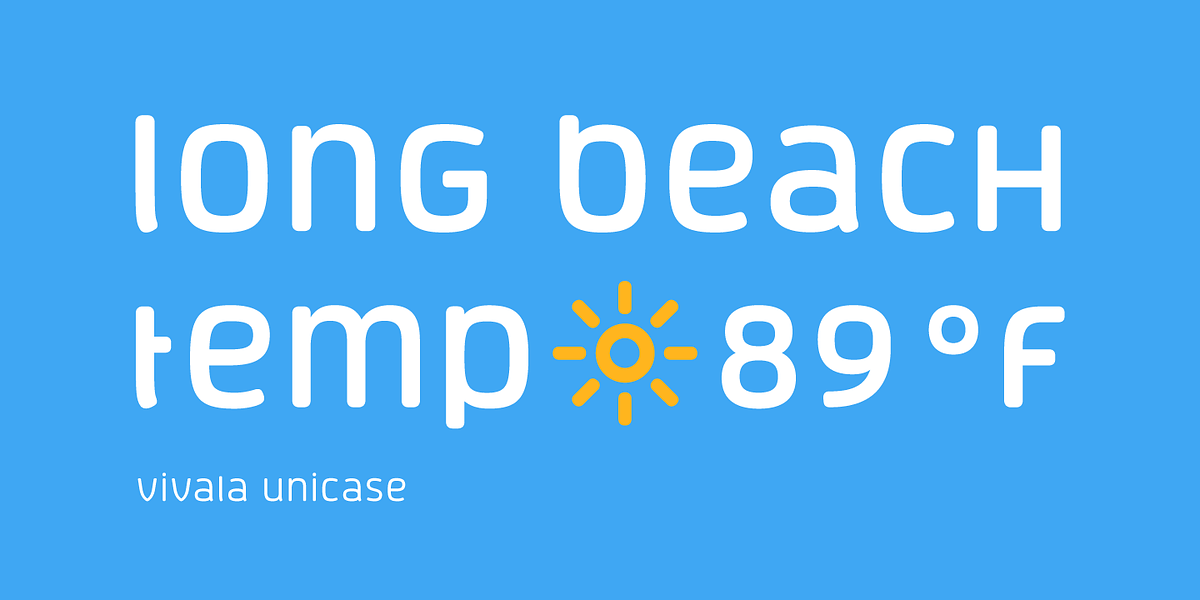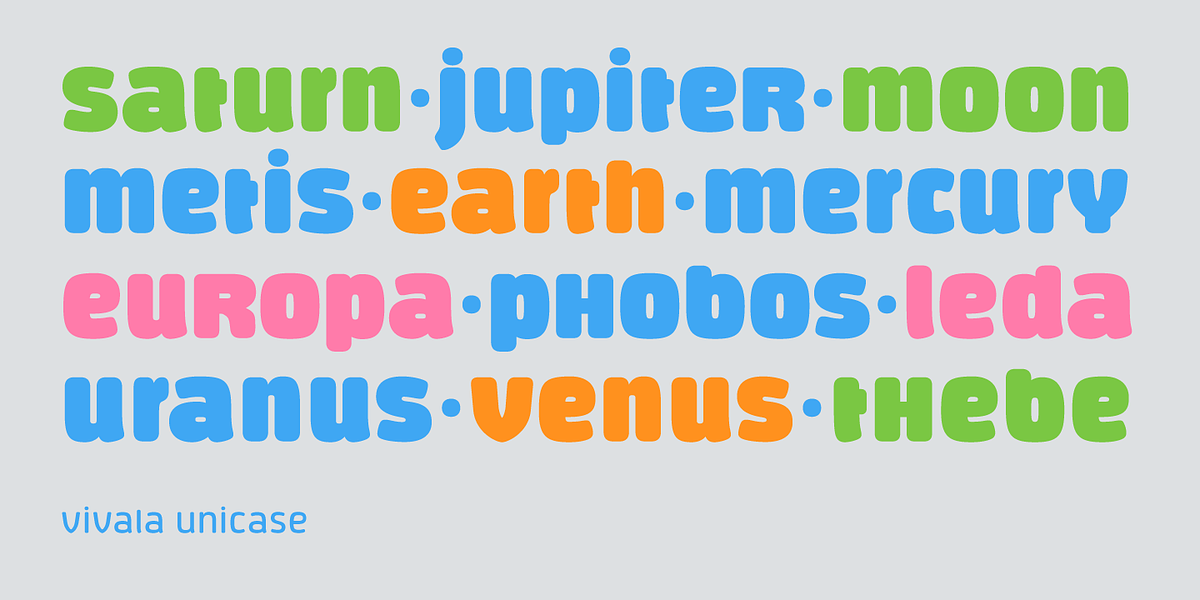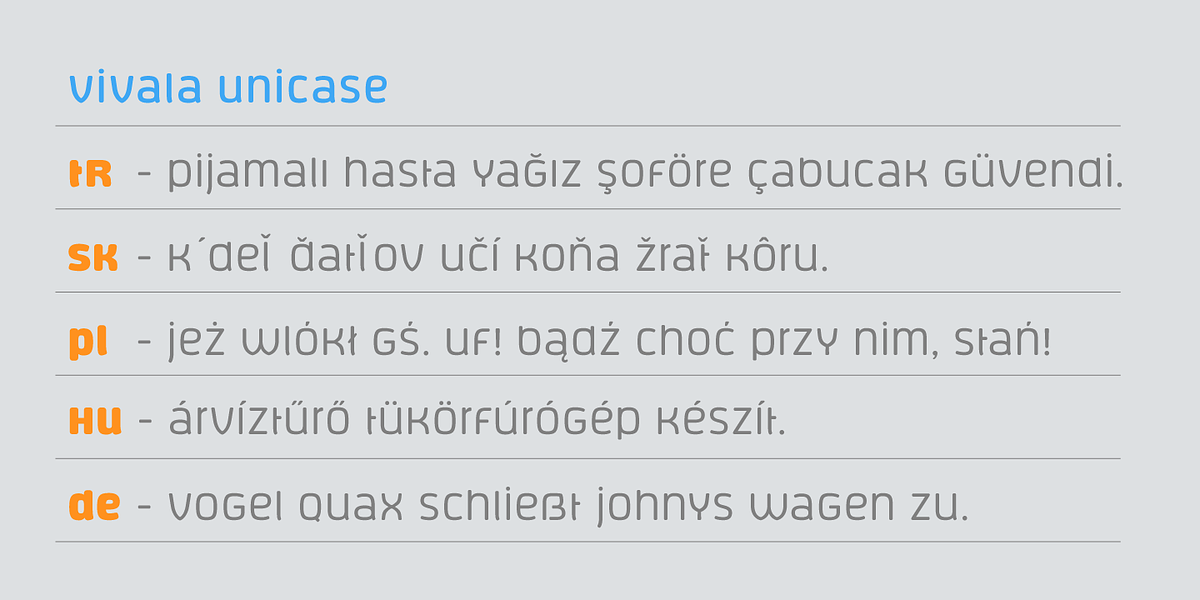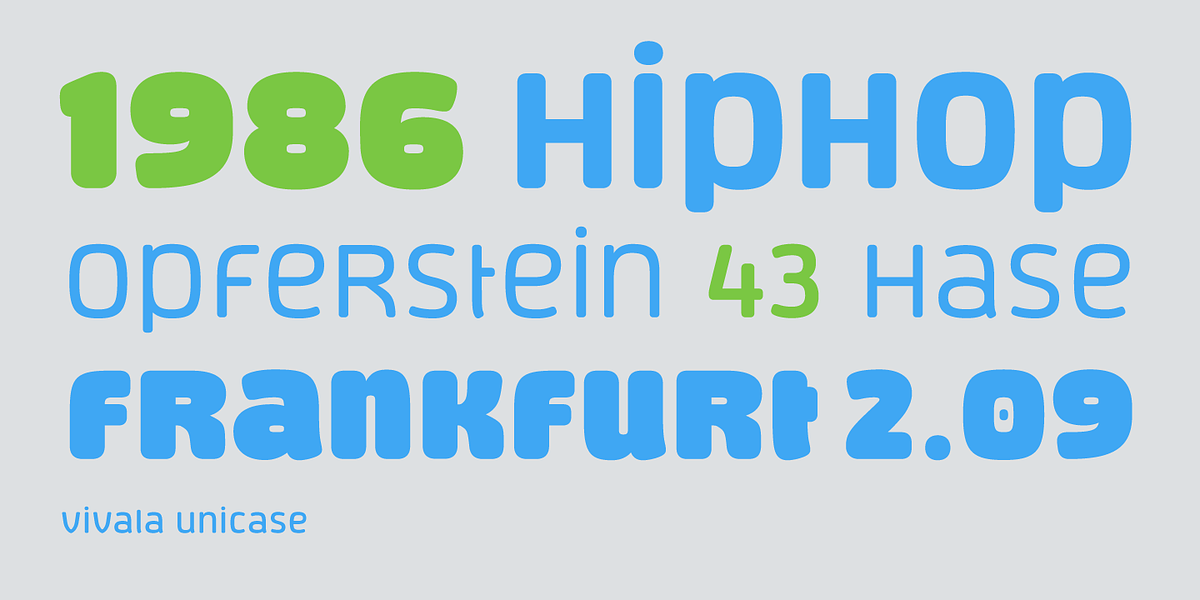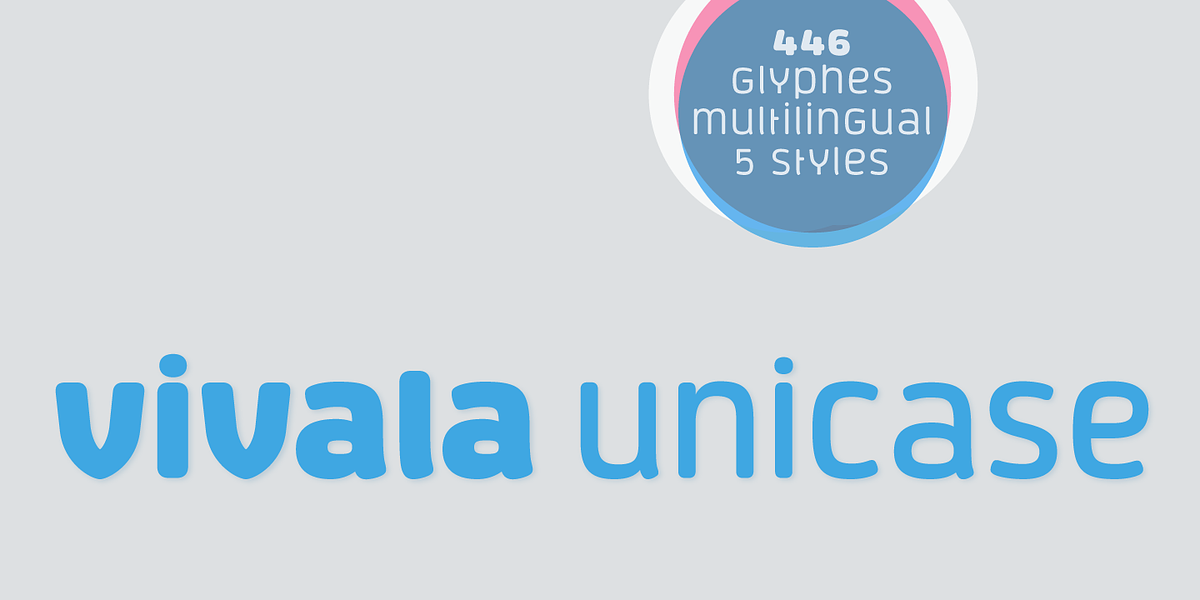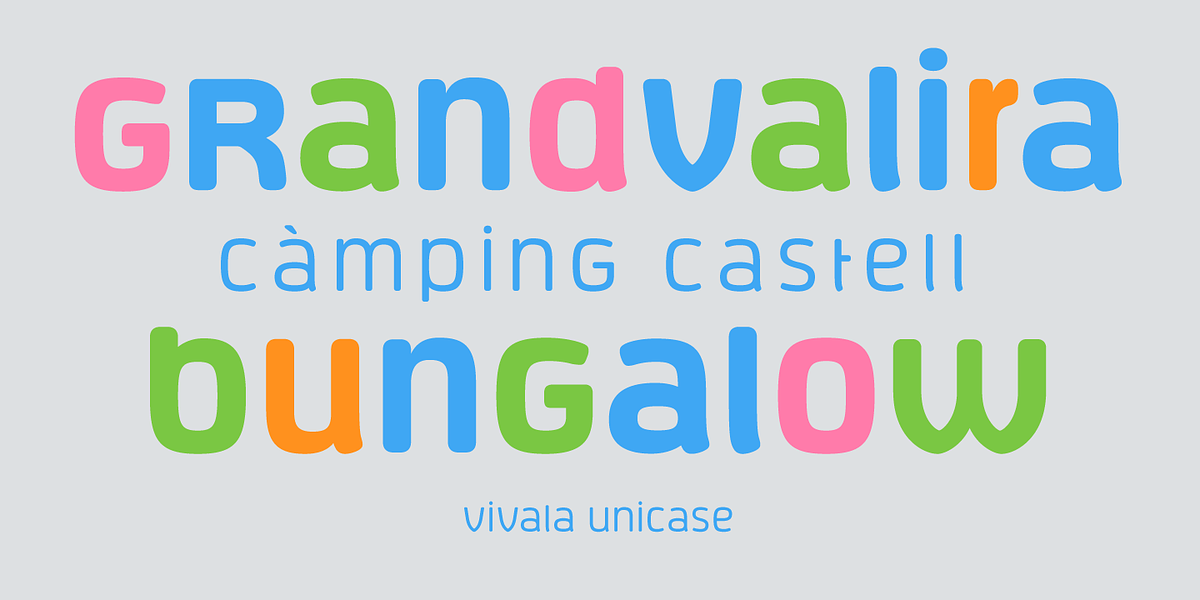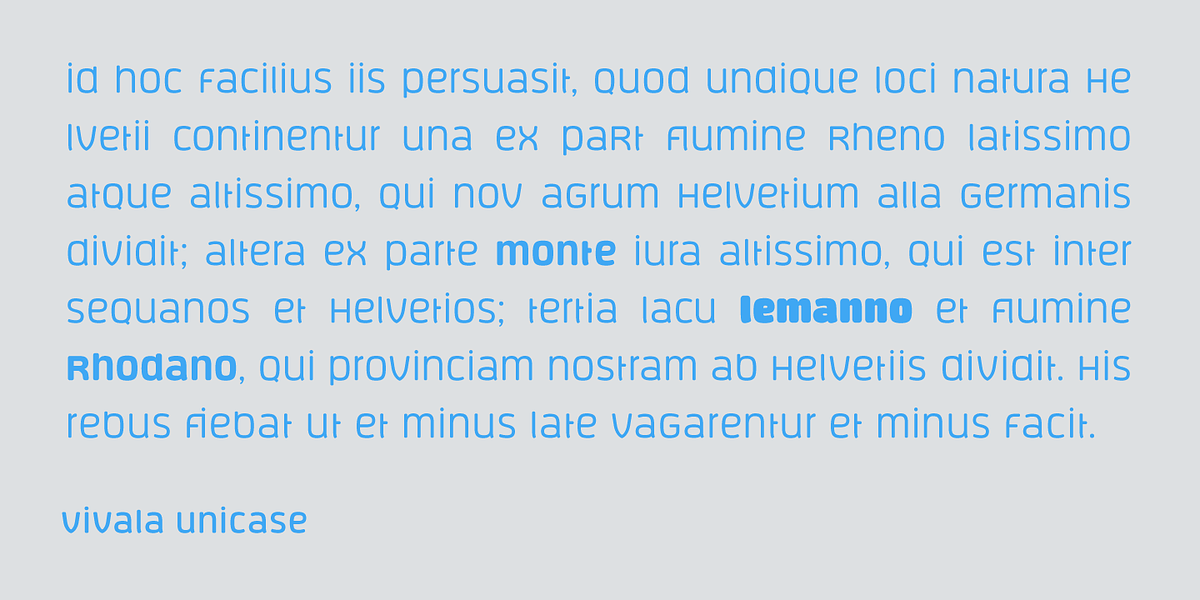
Vivala Unicase
Vivala Unicase is a modern sans serif font characterized by its rounded letterforms. The unique unicase design, where uppercase and lowercase letters share similar visual weight, contributes to its readability even at small sizes. The typeface offers five weights, including a bold option, allowing for versatile application in various design contexts. Its extensive character set makes it suitable for posters, t-shirt designs, promotional materials, car decals, labeling, trademarks, and headlines.